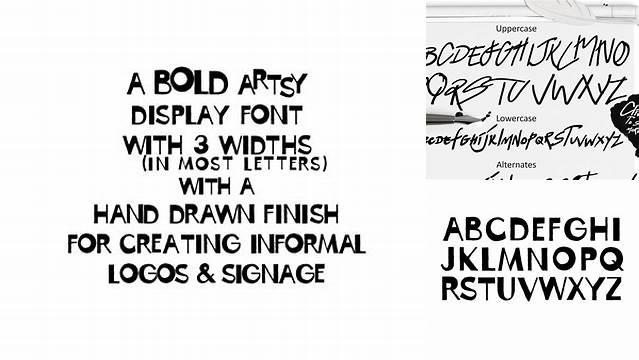
Hand-Drawn Display Fonts: A Creative Guide
Hey guys, are you looking to add a touch of personality and uniqueness to your designs? Well, look no further! Hand-drawn display fonts offer a fantastic way to make your projects stand out. These fonts, crafted with a human touch, bring a raw, authentic feel that digital perfection often lacks. In this guide, we'll dive deep into the world of hand-drawn display fonts, exploring their characteristics, uses, and where to find the best ones. Ready to get started?
What are Hand-Drawn Display Fonts? Exploring the Charm
So, what exactly are hand-drawn display fonts? Unlike their more rigid, computer-generated counterparts, these fonts are created by hand, either with traditional tools like pens and brushes or using digital drawing tablets. This manual process infuses each letter with a unique character, resulting in fonts that feel more organic, personal, and visually engaging. They're typically used for headings, titles, and short bursts of text where impact and style are paramount. Think of them as the artistic equivalent of a signature – each font is a distinctive mark, carrying a story and expressing a specific mood or aesthetic. The beauty of hand-drawn fonts lies in their imperfections; the slight wobbles, the uneven strokes, and the subtle variations that give them their charm. It's this human element that makes them so appealing, adding a layer of warmth and approachability to any design. These fonts aren't just about aesthetics; they're about communication. They convey a sense of creativity, individuality, and a handcrafted quality that resonates with audiences on a deeper level. When used effectively, hand-drawn display fonts can transform the entire look and feel of your project.
Hand-drawn display fonts are a versatile design tool. You can find them in a variety of styles, from playful and whimsical to elegant and sophisticated. Some fonts mimic the look of handwriting, while others are inspired by vintage signage, graffiti art, or even natural textures. This diversity allows you to choose the perfect font to complement your project's overall theme and message. They're also incredibly effective at capturing attention. In a world saturated with digital content, hand-drawn fonts provide a refreshing contrast, drawing the eye and making your design more memorable. This is why they are a favorite among designers. Think about it: when you see something that looks handmade, you instantly perceive a level of care and attention that's not always present in mass-produced designs. This perception can significantly impact how your audience views your brand or project. The key to using these fonts effectively is to know where and how to use them. Overusing them can lead to a cluttered and unprofessional appearance. However, when used sparingly, these fonts can make a huge difference. Keep reading to learn more about the various uses and best practices to optimize your design.
The Appeal of Hand-Drawn Fonts: Why Choose Them?
Why would you choose a hand-drawn display font over a standard one? The answer lies in the unique qualities these fonts bring to the table. Firstly, they exude a sense of authenticity and human touch. In a world of mass production and digital perfection, hand-drawn display fonts offer a breath of fresh air. They signal that something has been carefully crafted, making your design feel more personal and engaging. This human element can create a strong connection with your audience, making them feel like they are part of something real and tangible. This connection is particularly valuable in a time where digital content is dominating our lives. Secondly, hand-drawn fonts can significantly enhance visual interest. Their unique strokes and imperfections make them stand out from the crowd, grabbing attention and making your message more memorable. This is crucial in today's competitive landscape, where designers need to work harder to capture the audience's attention.
They also add a distinct stylistic flair. These fonts come in various styles, allowing you to align your design with a specific mood or theme. Whether you're aiming for a playful vibe, a vintage aesthetic, or a modern look, there's a hand-drawn font to match. This flexibility enables you to tailor your design to your brand's personality or project's specific needs. Additionally, hand-drawn fonts can evoke emotion. The style of the font can influence how the audience perceives your message. A playful font can create a sense of fun, while a more elegant font can create a sense of sophistication. By carefully choosing the right font, you can enhance the emotional impact of your design, making it more memorable and engaging. This emotional connection can drive actions from your audience. From social media to web design, hand-drawn fonts are great, and they make a huge impact on your target audience. Lastly, they offer a sense of uniqueness that is hard to replicate with standard fonts. Because of their hand-crafted nature, each font has its own personality. This uniqueness can set your design apart from the competition, making it more original and memorable. In a world where many designs are starting to look the same, hand-drawn fonts give you an opportunity to showcase your individuality and creativity. If you want to take your design to another level, this is one of the most important things you must keep in mind.
Uses of Hand-Drawn Display Fonts: Where They Shine
Hand-drawn display fonts truly shine in specific contexts. These fonts are not designed for body text; instead, they excel in areas where visual impact and personality are paramount. One of the primary uses is in headlines and titles. Their distinctive appearance makes them perfect for grabbing attention and immediately conveying the tone of your content. Imagine seeing a website with a hand-drawn font as the headline: it's more likely to stop you in your tracks than a standard sans-serif font. Another great use is in logos and branding. They can help create a unique brand identity that feels authentic and memorable. A logo that looks hand-drawn conveys a sense of craftsmanship and attention to detail, instantly elevating your brand image. Think about how many brands use unique hand-drawn fonts. Also, these fonts can be super effective in posters and flyers. Their artistic quality makes them ideal for creating eye-catching promotional materials. They add a layer of creativity and individuality that standard fonts can't match. Whether you're promoting an event, a product, or a service, a hand-drawn font can significantly boost the visual appeal of your poster or flyer.
Also, hand-drawn fonts are the perfect choice for social media graphics. In a world saturated with digital content, these fonts help your posts stand out from the crowd. They're perfect for quotes, announcements, and other visually driven content. They help your audience to identify the content you are creating. Don't forget website design too! You can use hand-drawn fonts for headings, call-to-actions, and other key elements to add a touch of personality and make your site more engaging. They add a unique touch to your site and increase the amount of time your audience spends there. Additionally, they work well for packaging design. A hand-drawn font can give your product a handcrafted feel, enhancing its appeal and conveying a sense of quality and care. It's a great way to attract customers' attention on the shelves. One thing to remember is to use these fonts judiciously. They are best used in small doses to complement your design, not overwhelm it. With a proper balance, the results can be amazing!
Finding the Right Hand-Drawn Display Font: Tips and Resources
Finding the perfect hand-drawn display font can feel like searching for a needle in a haystack, but it's definitely worth the effort. Here's how to navigate the world of hand-drawn fonts and find the ideal match for your project. First, define your project's needs. What style are you aiming for? What mood do you want to convey? Knowing this will narrow down your options. Then, consider the readability of the font. While hand-drawn fonts are visually appealing, some can be difficult to read, especially in smaller sizes. Make sure the font you choose is legible. After this, look for font foundries and marketplaces. Websites like Creative Market, Etsy, and Font Bundles offer a vast collection of hand-drawn fonts. Browse through different styles, and save the ones that catch your eye. Also, check out free font resources. Websites like Google Fonts and Dafont offer a selection of free hand-drawn fonts. They might not be as unique as premium fonts, but they can be a great option for smaller projects or when you're on a budget.
Next, test the font in your design. Before you commit to using a font, try it out in your project. See how it looks in your headline, logo, or other design elements. Make sure it complements your project's overall aesthetic. Also, it's important to consider licensing. Make sure you understand the terms of the font license. Some licenses restrict commercial use, while others allow it. Avoid any legal issues, and choose the license that suits your needs. Consider the reputation of the font designer. Research the designer or foundry to ensure they have a good reputation for creating high-quality fonts. Also, stay updated with font trends. New hand-drawn fonts are constantly being released. Stay up-to-date on the latest trends to ensure you're using the freshest, most relevant fonts. Don't be afraid to experiment. Try out different fonts and see how they look. The best way to find the perfect font is to experiment and find what works best for your project. This should be the most important tip in this section. With these tips, you'll be well on your way to finding the perfect hand-drawn font for your design.
Best Practices for Using Hand-Drawn Display Fonts
Using hand-drawn display fonts effectively requires more than just picking a pretty font. Here are some best practices to keep in mind to maximize their impact and ensure your designs look professional. First, choose the right font for your project. Consider the style, mood, and personality you want to convey and pick a font that complements your design. Next, use the font sparingly. Hand-drawn fonts are great for headlines and titles, but avoid using them for large blocks of text, as they can be difficult to read. This will prevent your audience from staying engaged. Try to pair your hand-drawn fonts with a clean, readable font. This contrast will make your design more appealing and easier to navigate. Don't forget to pay attention to kerning and spacing. These fonts often need more manual adjustment than standard fonts to ensure they look their best. Take the time to fine-tune your spacing.
Conclusion: Embrace the Unique Character
Hand-drawn display fonts are an excellent way to add personality, uniqueness, and a human touch to your designs. From headlines and logos to social media graphics and packaging, these fonts can elevate your projects. By understanding their characteristics, uses, and best practices, you can harness their power to create visually stunning and highly engaging designs. So, go ahead, embrace the unique character of hand-drawn fonts and let your creativity flourish! Happy designing, and have fun experimenting with these awesome fonts!